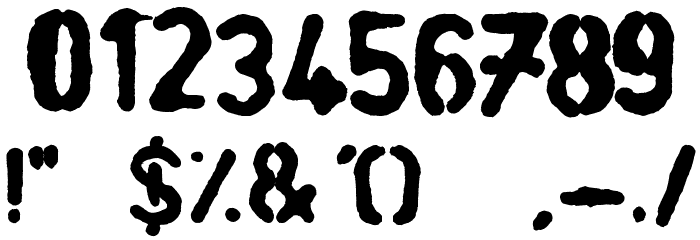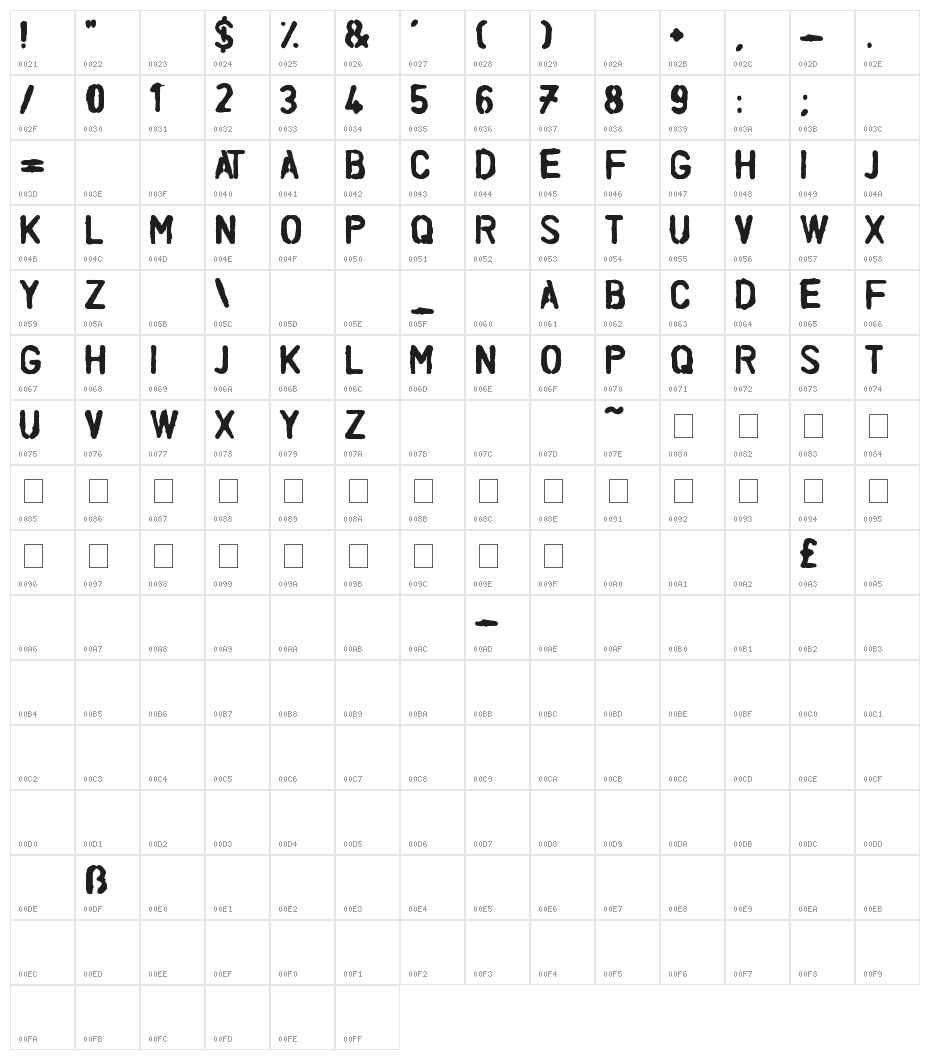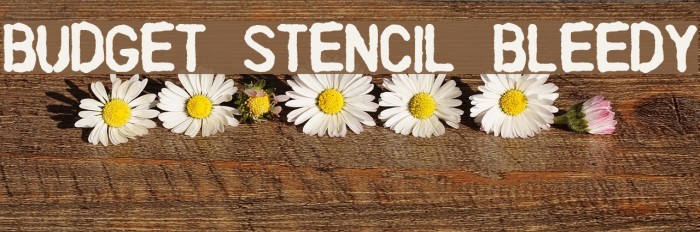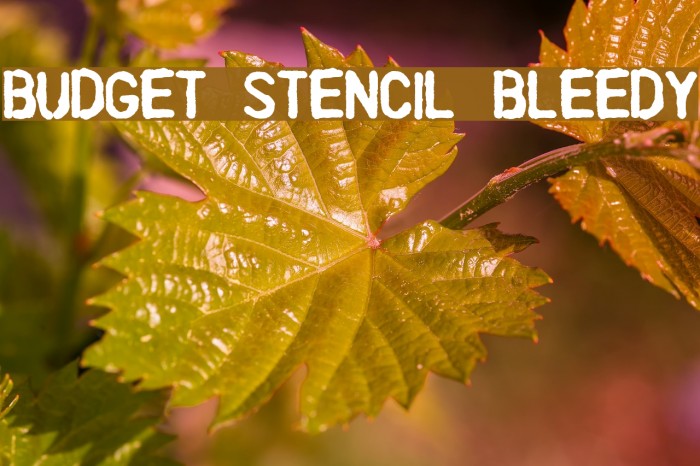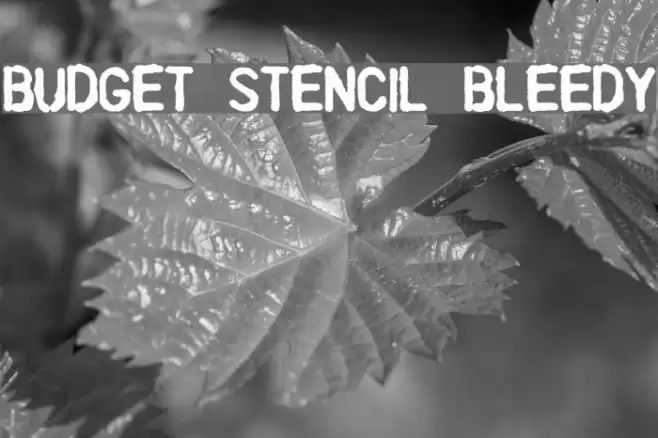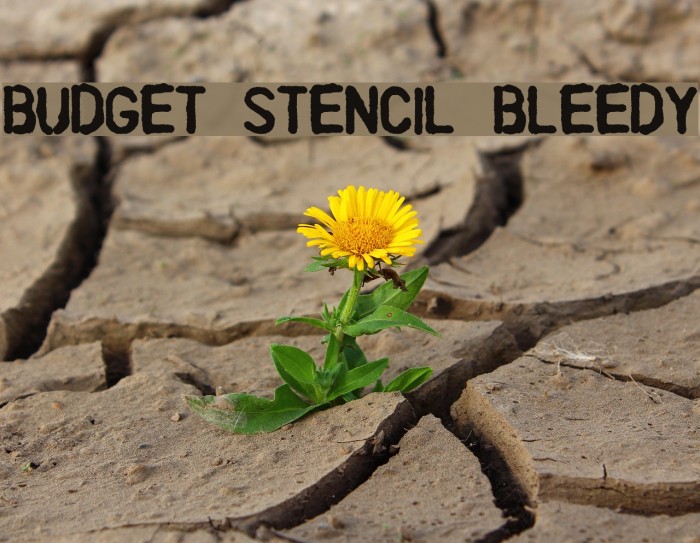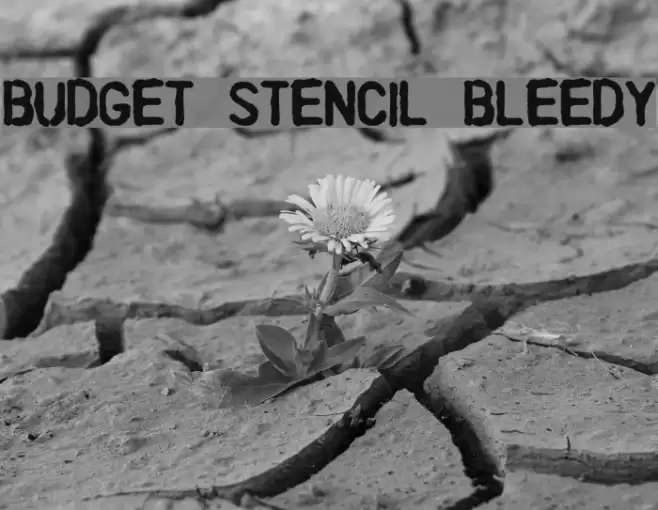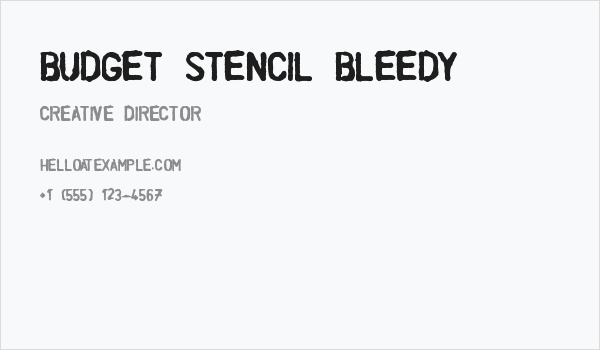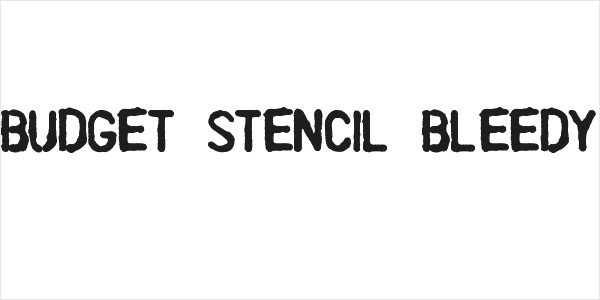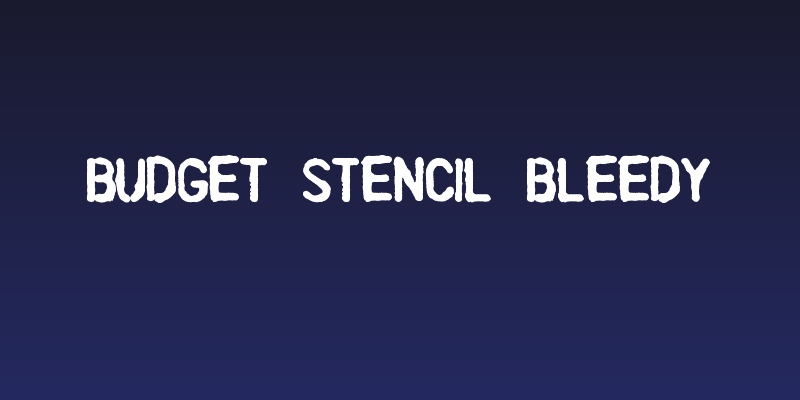
Budget Stencil Bleedy Font
Budget Stencil Bleedy Description
This font features a bold, stencil-like appearance with a distinctive bleedy effect, giving it a rugged and industrial feel. The characters are thick and robust, with uneven edges that suggest a hand-painted or spray-painted style. The uppercase and lowercase letters maintain a consistent width, while the numbers and special characters complement the overall aesthetic. The font's unique texture and bold presence make it stand out, ideal for projects that require a strong visual impact.
Overall StyleIndustrial, Urban, Rugged
Use CaseHeadlines, Posters, Branding
Proposed ProjectsIdeal for posters, urban-themed designs, street art projects, and branding that requires a bold, industrial look.